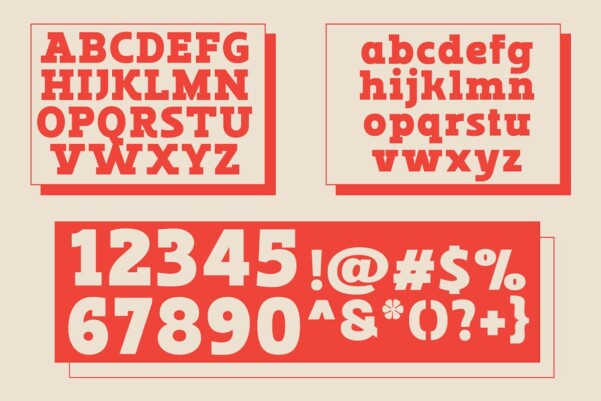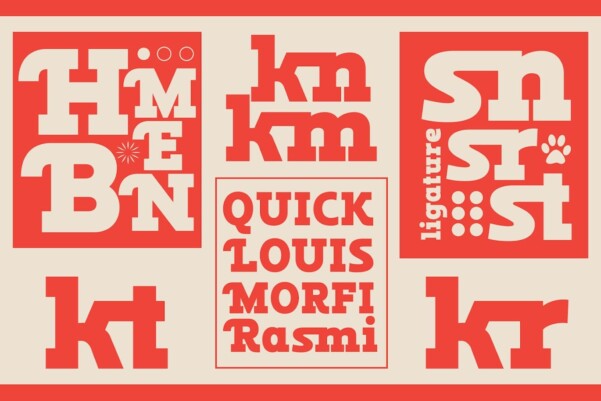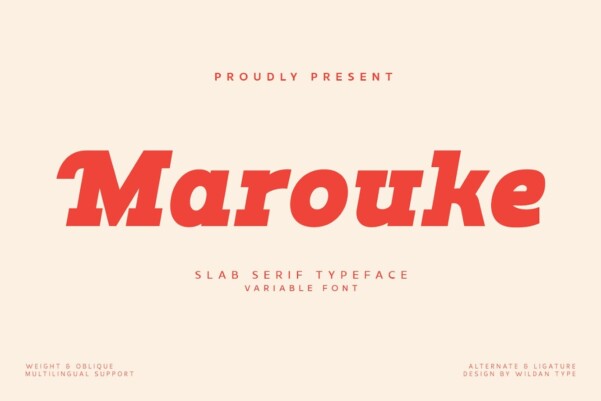
Marouke Font
Marouke Font, is a modern Serif inspired by sporty design and vintage style. It is a variable font, different styles and weights that you can apply to your design project. This font is designed with the visuality of strength. Make a beautiful combination of your design